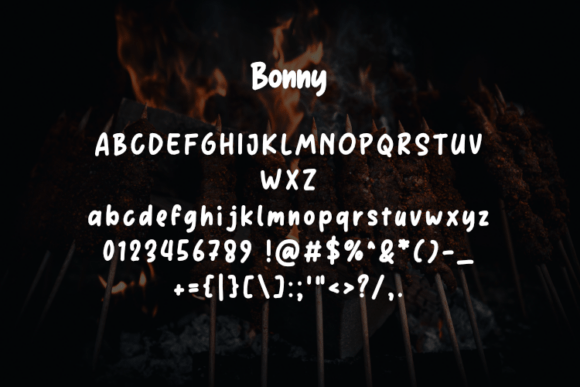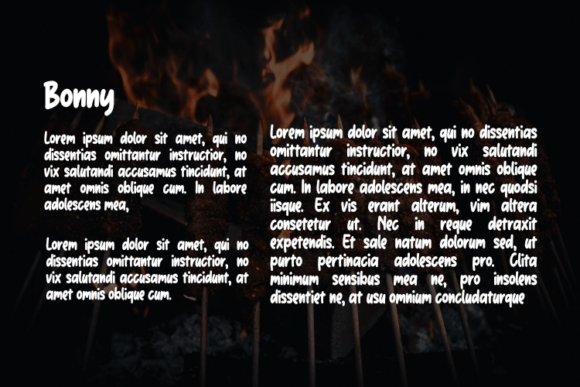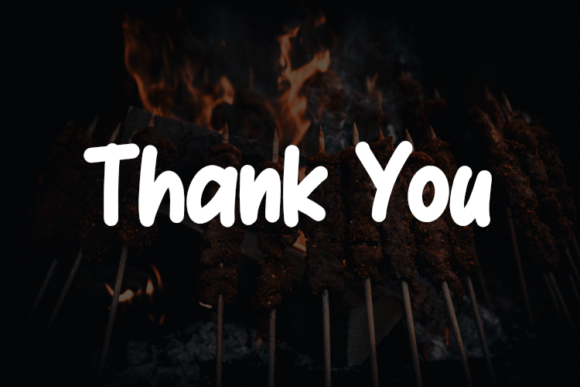
Introducing Bonny Font: The Epitome of Contemporary Elegance and Versatility
In the realm of typography, few typefaces manage to strike a balance between elegance, legibility, and versatility. Bonny Font, however, stands out as a beacon of excellence, offering designers and crafters a sophisticated tool to elevate their creative projects. This contemporary typeface is meticulously crafted to ensure optimum flexibility and remarkable legibility across diverse platforms, making it an indispensable asset for professionals in the design industry.
A Typeface of Unparalleled Versatility
Bonny Font is renowned for its versatility, a trait that makes it effortlessly adaptable to various design needs. From branding and advertising to web design and print media, Bonny brings a distinct elegance to any canvas. Its sophisticated design ensures that it can be used in a multitude of contexts, from headlines and titles to body text, without ever compromising on legibility or aesthetic appeal.
Elegance Across Diverse Platforms
What sets Bonny apart is its ability to maintain its elegance and legibility across diverse platforms. Whether your design is destined for digital screens or print, Bonny ensures that your message is conveyed with clarity and style. This adaptability is particularly valuable in today’s multi-channel world, where designs are often viewed across a range of devices and mediums.
Advantages for Designers and Crafters
For designers and crafters, Bonny Font offers several key advantages:
- Flexibility: Bonny can be used across various design applications and platforms, making it a flexible choice for projects that require a consistent typographic voice.
- Elegance: Its sophisticated design adds a touch of elegance to any project, helping to elevate the overall aesthetic and impact.
- Legibility: Bonny’s design prioritizes legibility, ensuring that your message is communicated clearly, whether in headlines or body text.
Bonny Font represents a significant advancement in typography, offering a unique blend of contemporary elegance, versatility, and legibility. Its cross-platform compatibility, courtesy of the .otf file format, makes it an excellent choice for designers and crafters seeking a reliable and sophisticated typeface. Whether you’re working on a branding project, website design, or print materials, Bonny is poised to elevate your creative output with its distinct elegance and remarkable legibility.